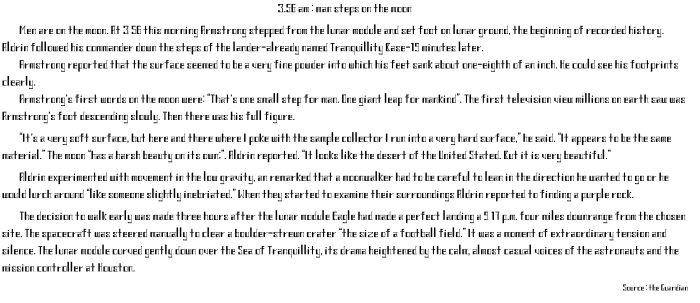
• this fonts doesn't uses any curves, but instead, uses straight lines, and also this font is similar to a Serif font.
one of the drawbacks of this font that its hard to read from afar
each individual letter looks odd but the whole font together has a lovely and consistent style, very inspiring